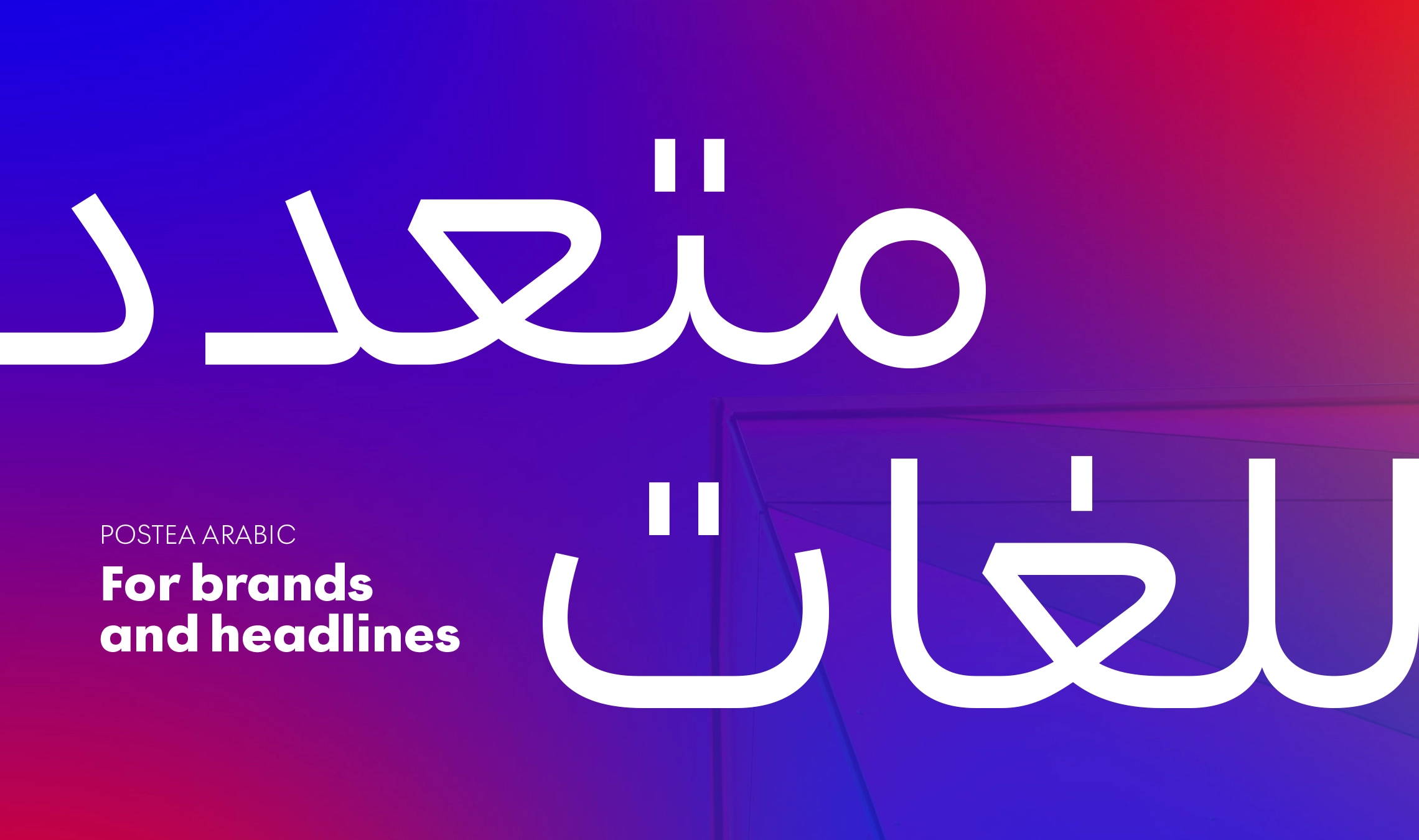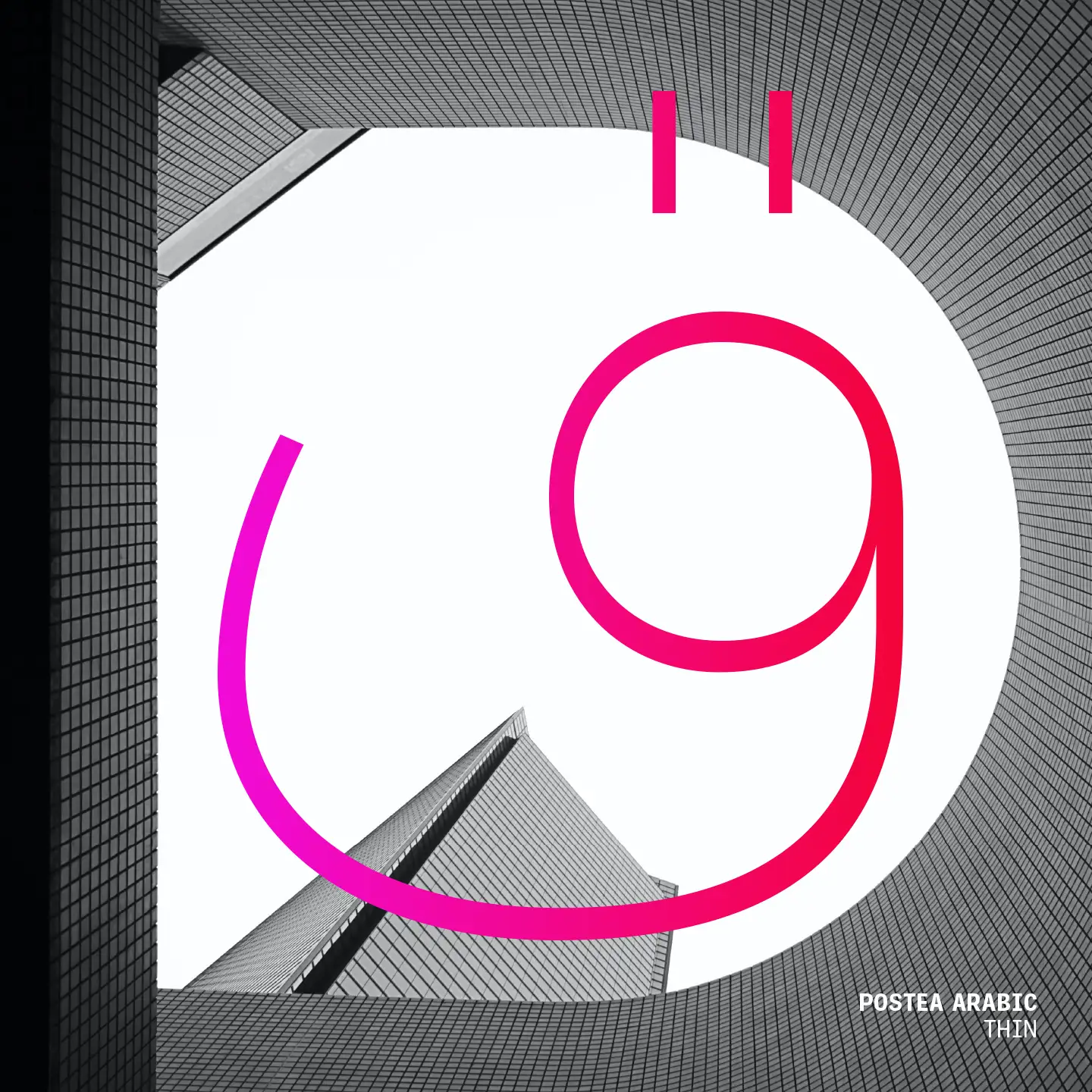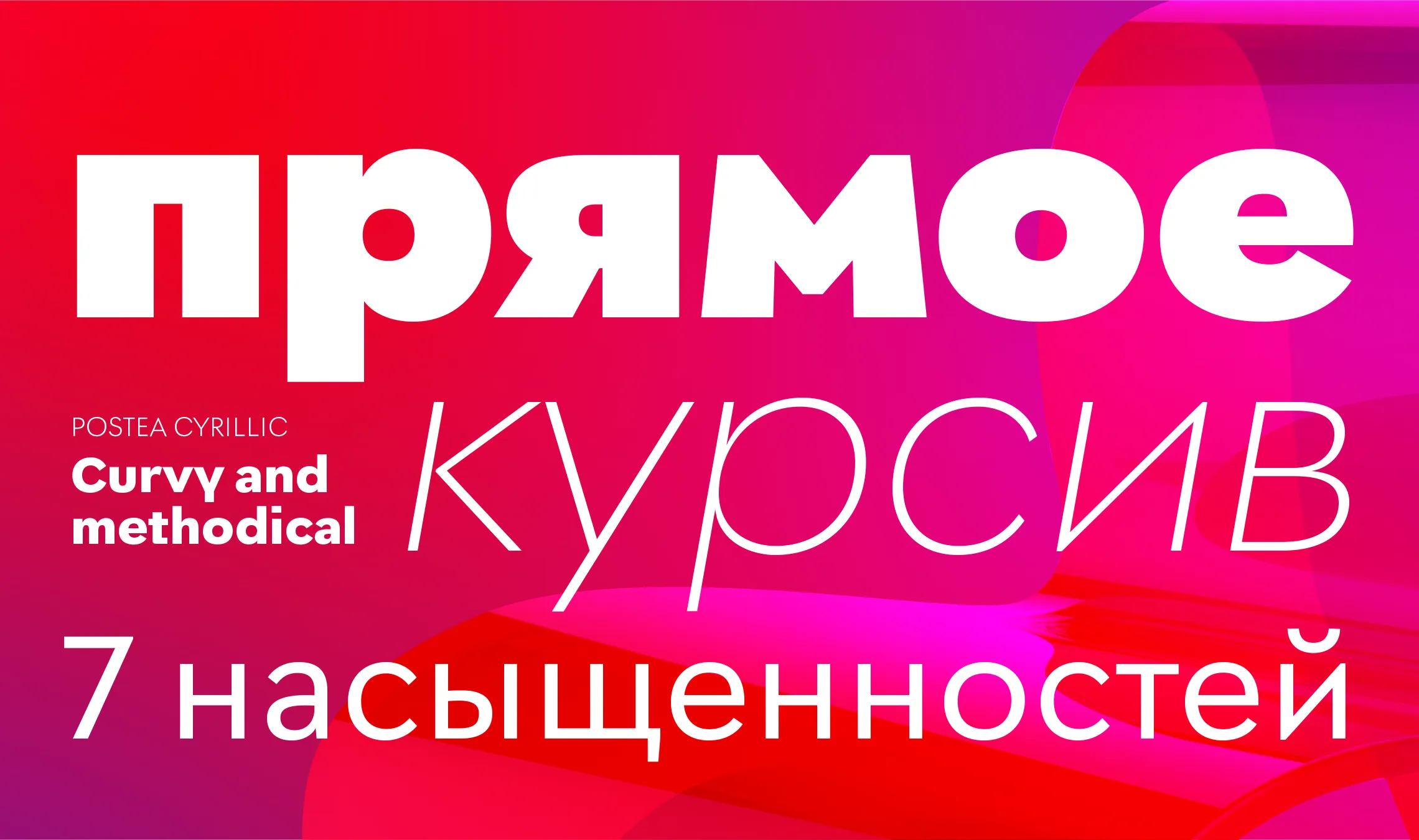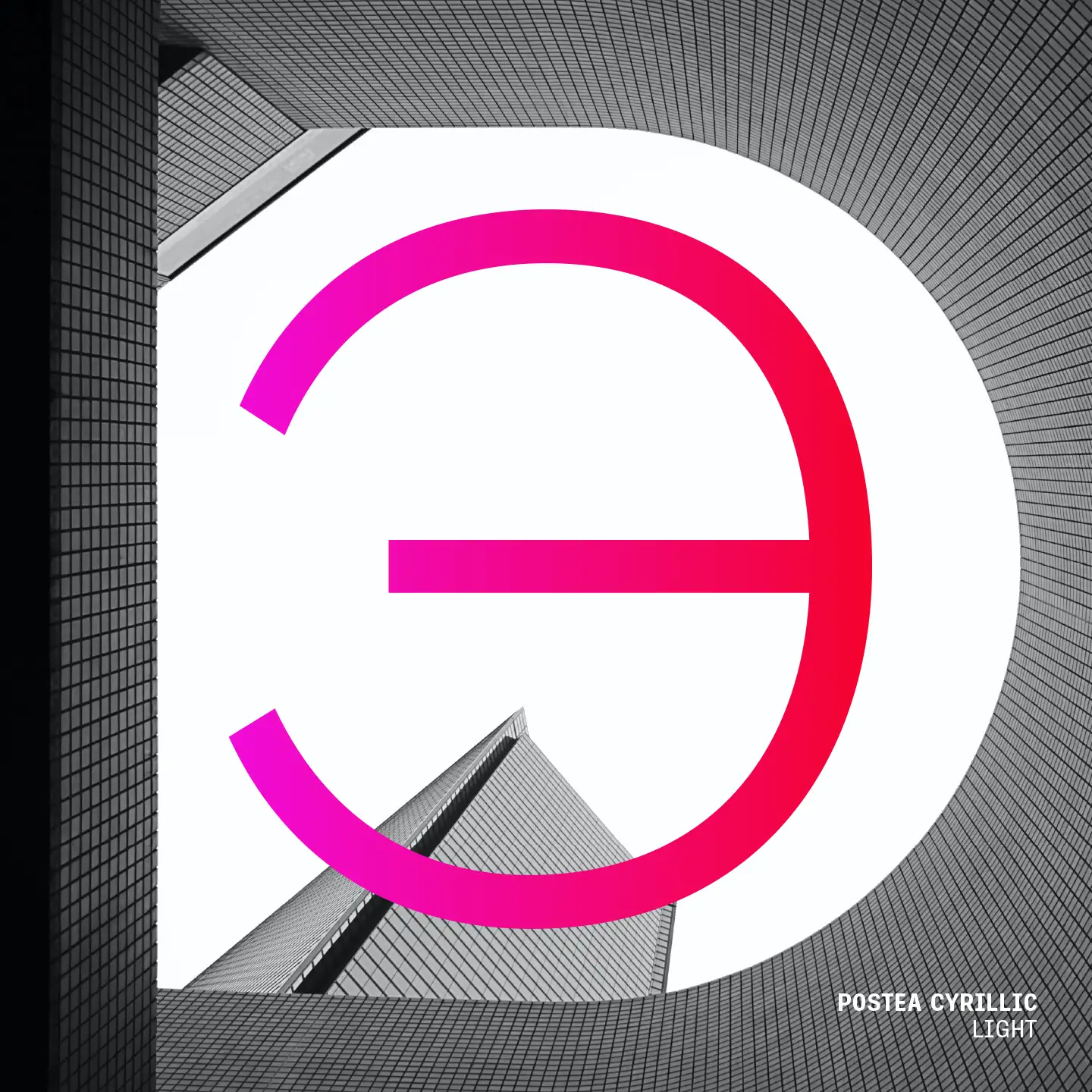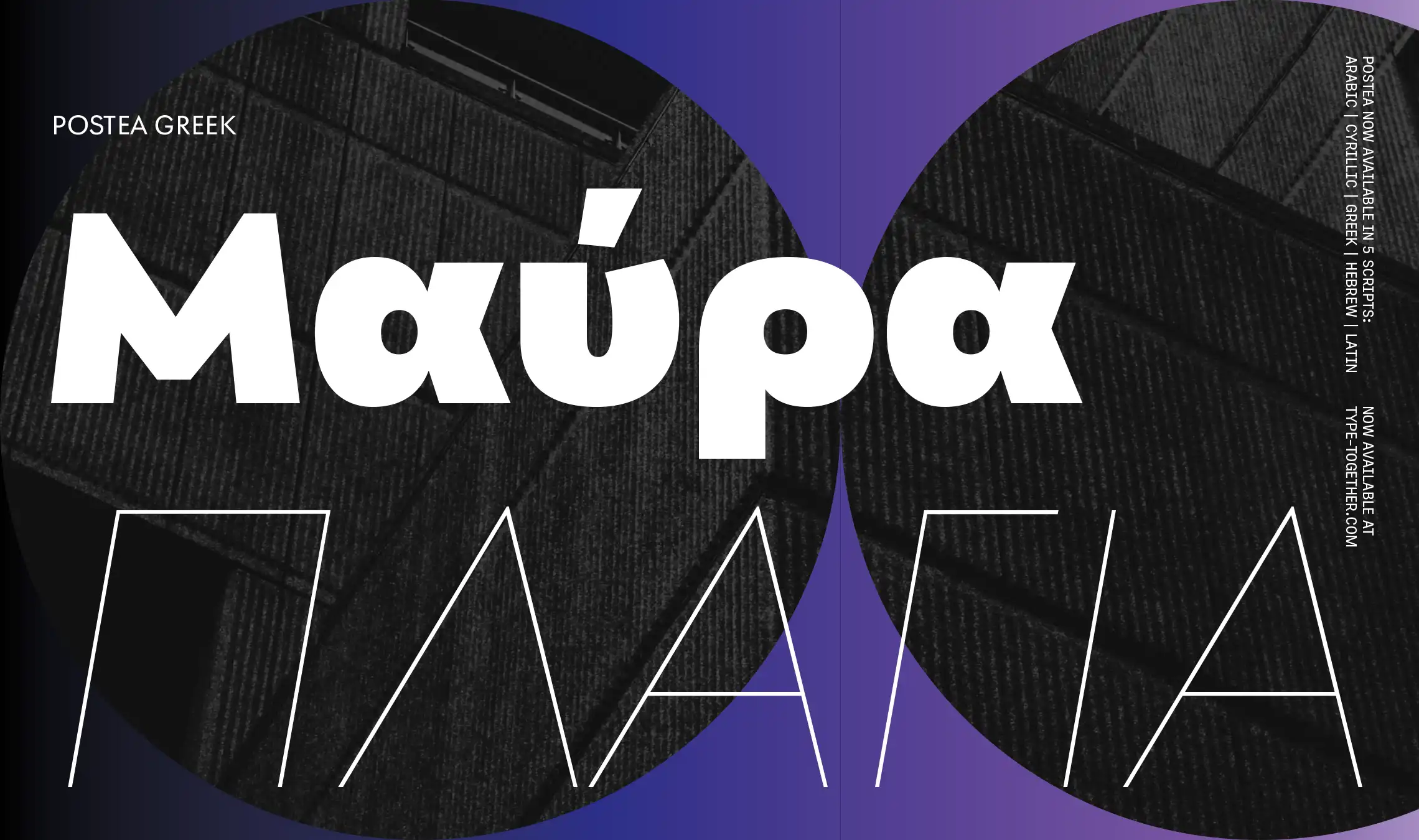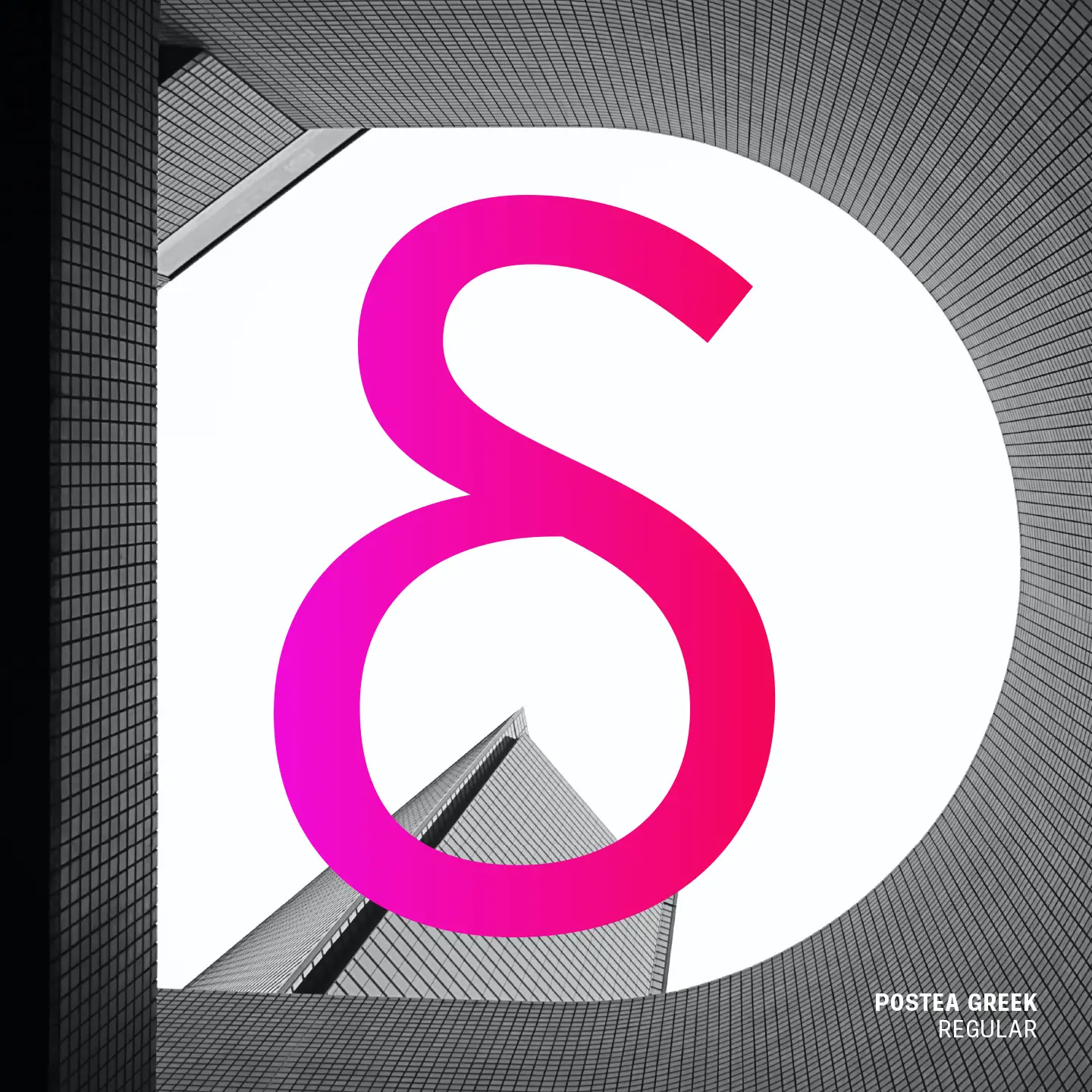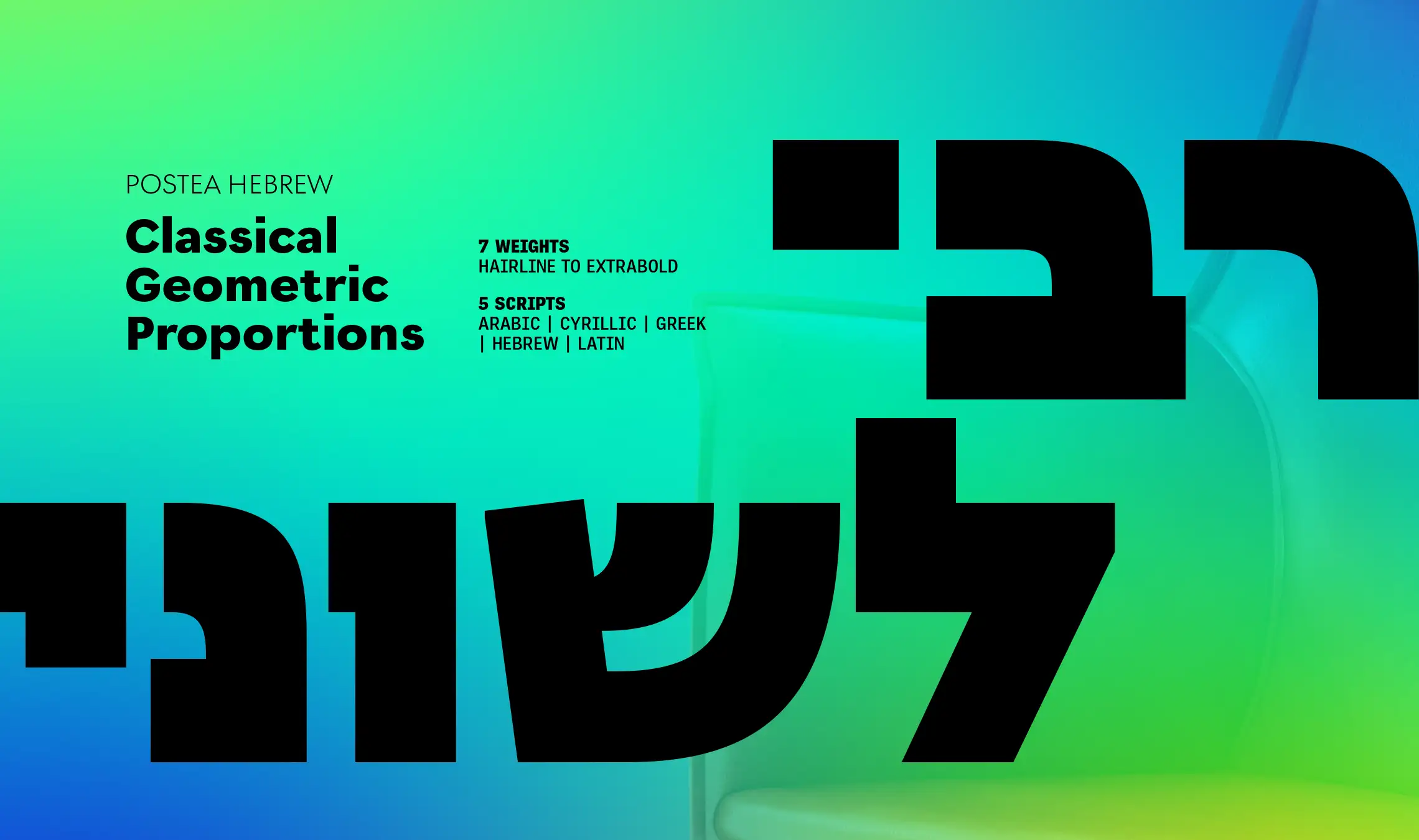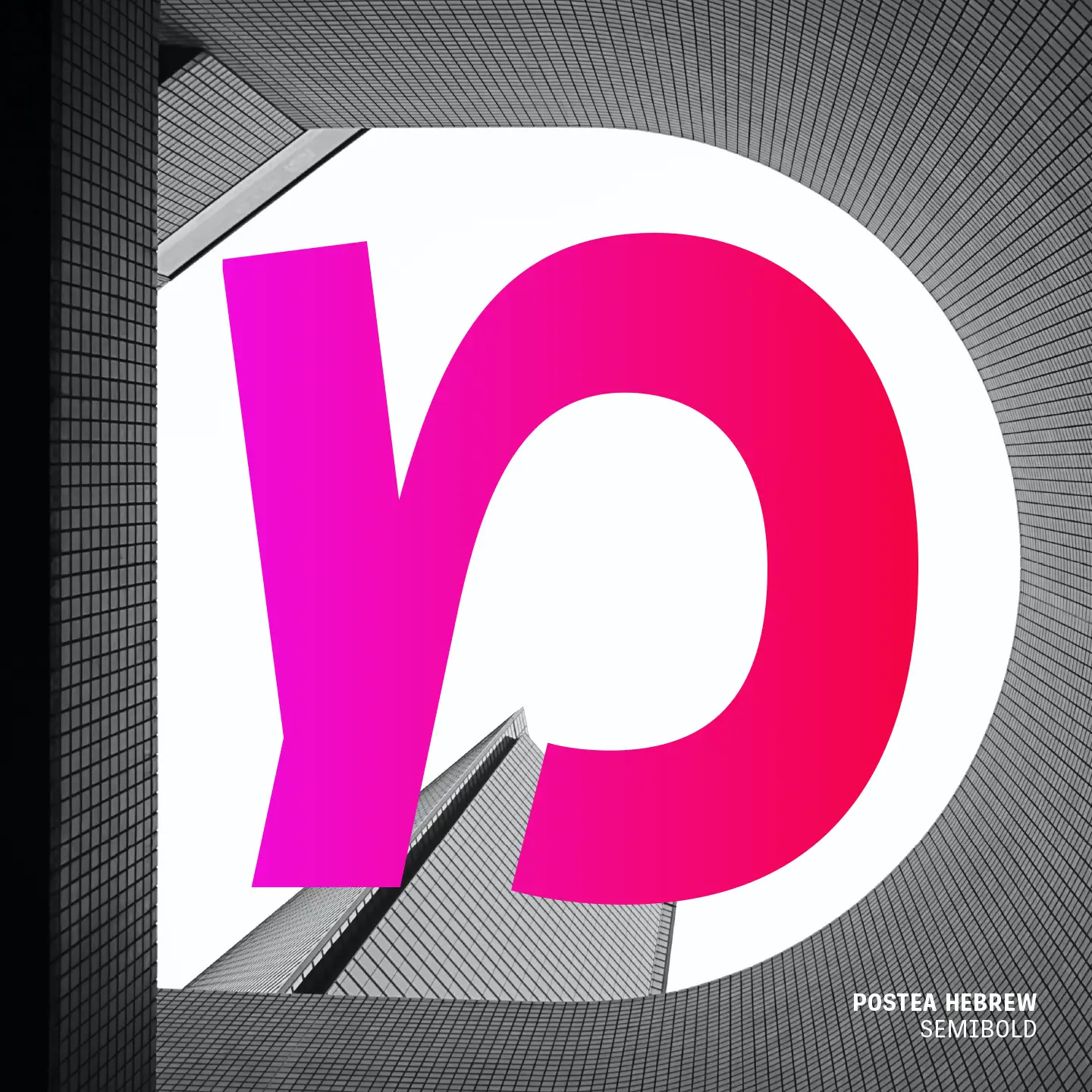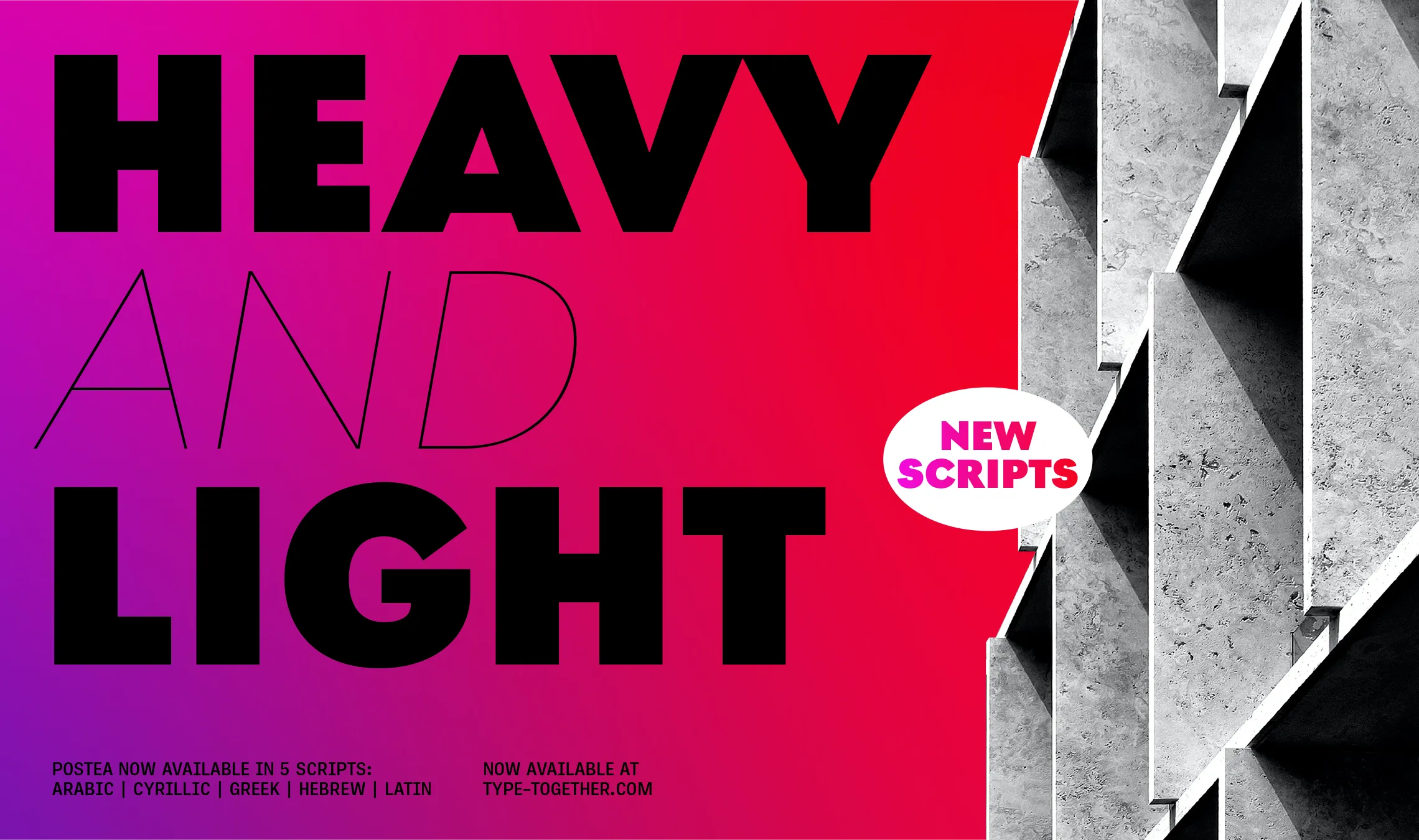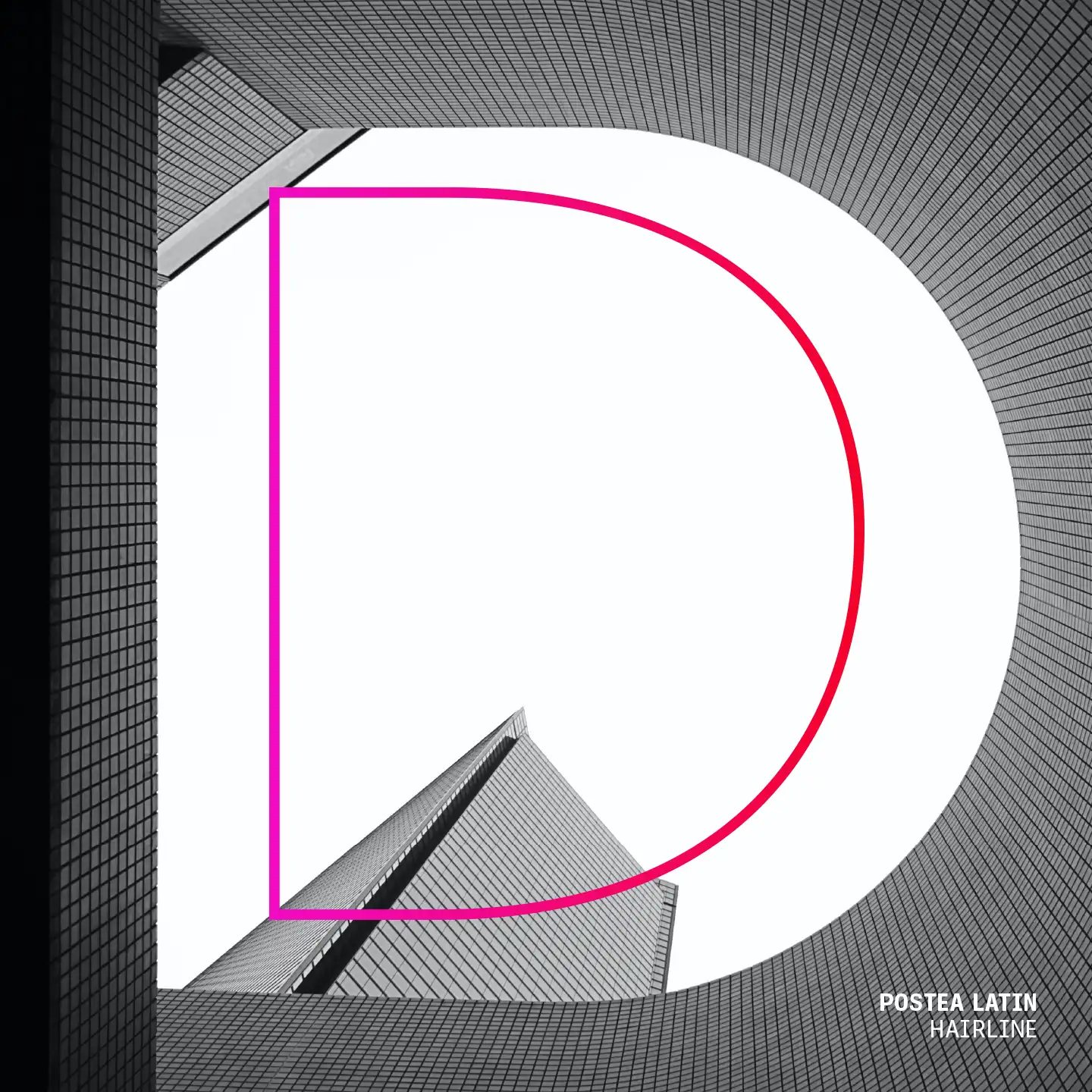
4x better: Postea Multiscript
A total of five scripts are now available in our generously styled and impactful geometric font family, Postea Multiscript.
Midcentury values have been oversimplified to hold that “less is more”, when what might be more accurate is something like, “Meaningfulness is more, so each element should have multiple levels of meaning and usefulness.”
Enter: Postea Multiscript, born of the classic values of simplicity and impact.
We have always been committed to creating typefaces that are useful globally, and we always intended Postea Multiscript to be a large family. After the success of Postea Latin, we decided to expand it with Arabic, Cyrillic, Greek, and Hebrew since the initial design translated well into those scripts. Azza Alameddine designed the Arabic, Vera Evstafieva did the Cyrillic (art direction by Tom Grace), Greek by Veronika Burian, and Tom Grace designed the Hebrew (consultancy by Meir Sadan). As is normal for us, each script also includes the Latin counterpart for mixed environment capability — our perpetual two-for-one deal.
A geometric structure is the core of this family and makes it perfect for branding, signage, corporate typefaces, and magazines. We’ve also given great consideration to its readability, loosening the overall spacing in the regular styles versus tighter “headline spacing” for the lightest styles.
TypeTogether specialises in multiscript typefaces. The way to do this well is to partner with script experts to ensure wide character inclusion. So besides including the Latin within all other scripts, they all come with alternate characters, contextual alternates, and region-specific shapes. And we are already planning to add more scripts as Postea continues its expansion.
Postea is iconic. It begins with the declarative presence and smooth appearance expected in a geometric font family. This same theme is carried throughout its slew of icons, shapes, and patterns, just begging to be used indiscriminately. Each shape can be staggered, layered, and repeated for unique contextual touches or as a central piece of the design.
The entire five-script Postea family holds to meaningful minimalism in which each element is purposefully placed, carries depth, and is able to fulfil more than one purpose. From branding and posters to headlines and text, Postea Multiscript can be as bright as a neon colour palette or as subdued as a whisper. In text it is the partner to more audacious typefaces, and in larger sizes it sets the tonal expectation for the rest of the design.
If you thought midcentury design would fade as a trend, think again. It lives on in the virtues it extolled and the things it produced. A century later, it still creates lasting impressions with lasting effects. Postea Multiscript joins this line of design pedigree in both spirit and function, offering more of the world access to refined and impactful text.
Postea Arabic geometric alternates (SS02).
Postea Greek geometric alternates (SS02).
Postea Cyrillic geometric alternates (SS02).
Postea Hebrew geometric alternates (SS02).
Shapes, patterns, and ornaments are included in all scripts. They can be found in the Glyphs panel or by applying Stylistic Set 09.